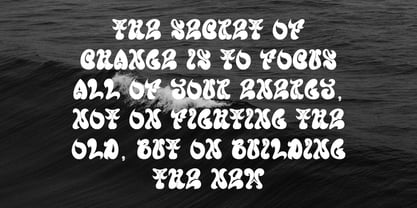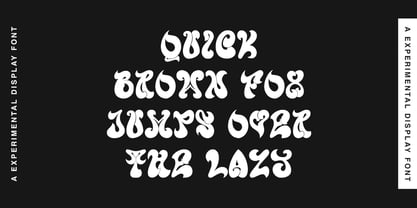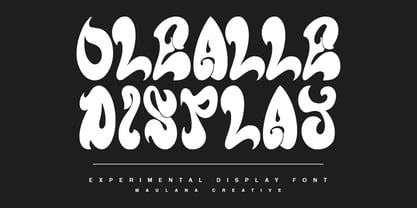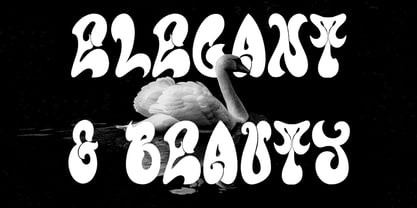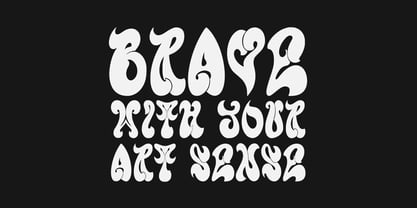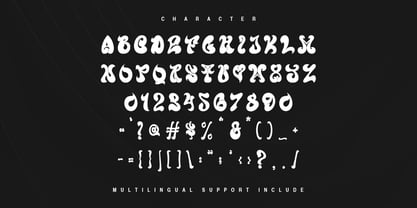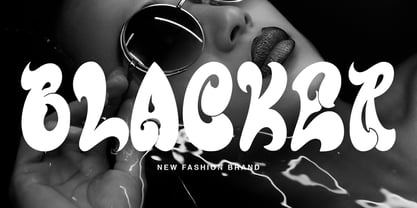
MC Olealle
by Maulana Creative
The MC Olealle Font Family was designed by Gilang Maulana and published by Maulana Creative. MC Olealle contains 1 styles. More about this family
Olealle is a experimental display font. To give you an extra creative work. Olealle experimental display font support multilingual more than 100+ language. This font is good for logo design, Social media, Movie Titles, Books Titles, a short text even a long text letter and good for your secondary text font with sans or serif. Make a stunning work with Olealle experimental display font.
Designers: Gilang Maulana
Foundry: Maulana Creative